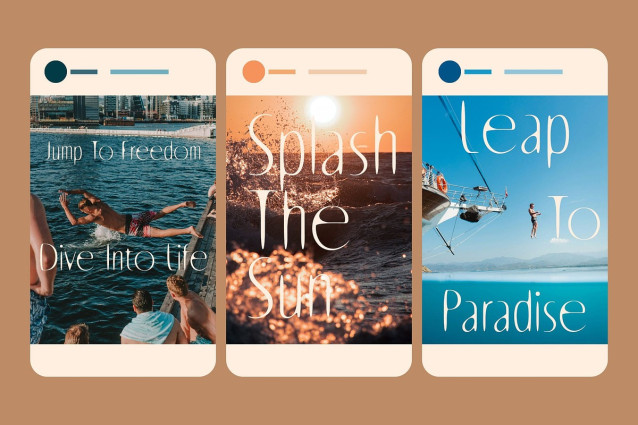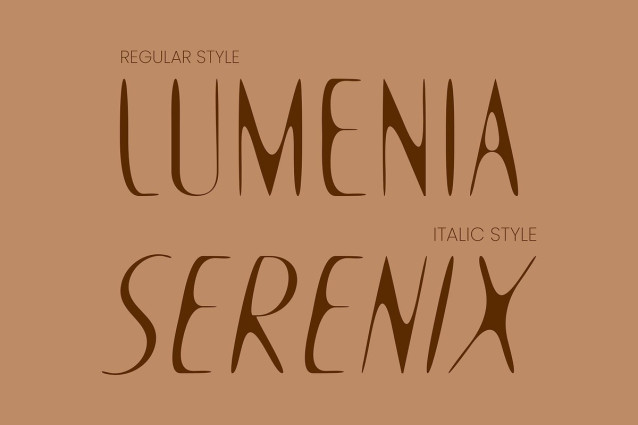
CS Rosalyn Drawn Font
CS Rosalyn Drawn Font – This is a handwritten sans font that strikes a balance between casual strokes and modern clarity. Its imperfect yet approachable design makes every letter feel human and expressive, while the sans serif foundation keeps it clean and versatile. This unique combination allows the font to radiate authenticity without sacrificing readability.
Messy Touch for Natural Warmth The slightly messy, hand-drawn quality of sets it apart from overly polished typefaces. Instead of rigid lines, it embraces small variations that mimic real handwriting. This natural imperfection adds warmth and relatability, making it ideal for brands or projects that want to appear approachable and genuine.
Relaxed Look for Creative Projects Whether on posters, packaging, or editorial layouts, brings a relaxed vibe to visual communication. Its casual style softens the tone of text, ensuring that designs feel friendly rather than formal. This quality makes it especially effective for lifestyle branding, playful campaigns, or artistic displays.
Versatile for Branding and Beyond This font adapts seamlessly across a variety of uses, from modern logos to product labels and social media graphics. Its charm lies in its ability to combine the expressiveness of handwriting with the stability of sans serif design. For designers looking to inject personality and warmth into their work, this fonts provides the perfect blend of casual artistry and professional clarity.